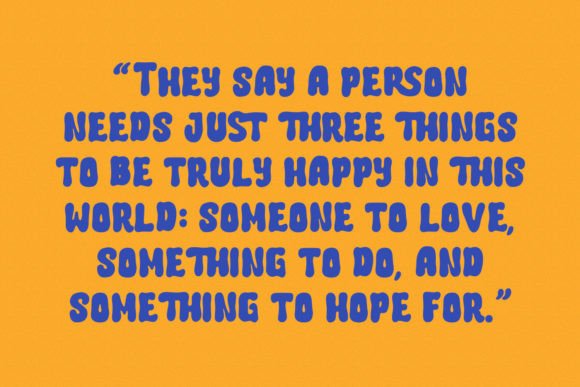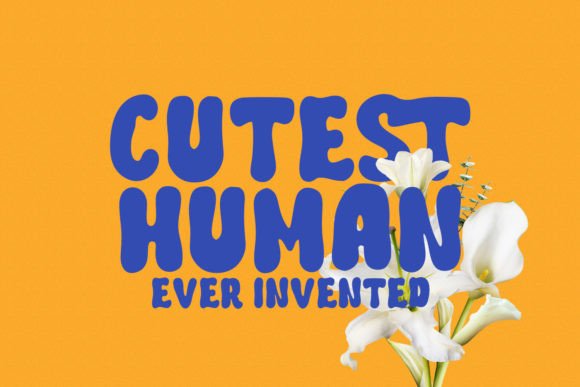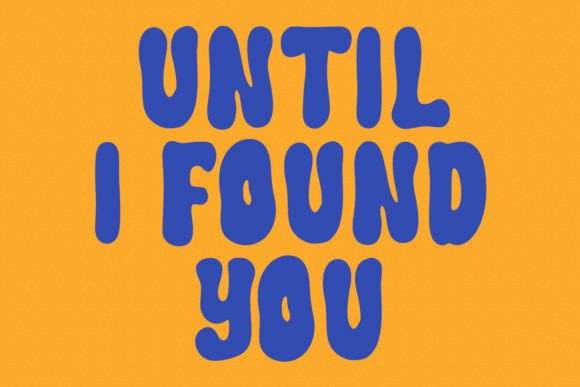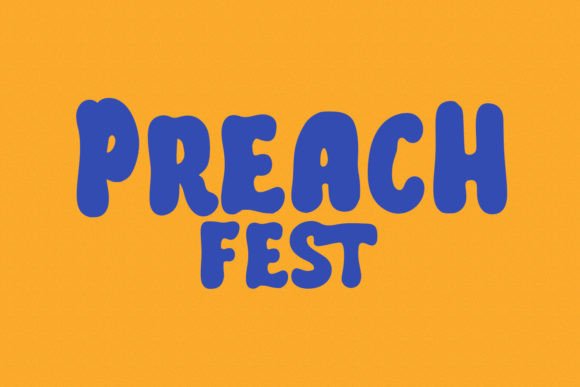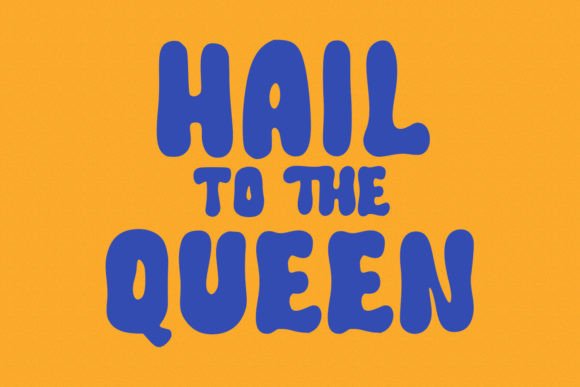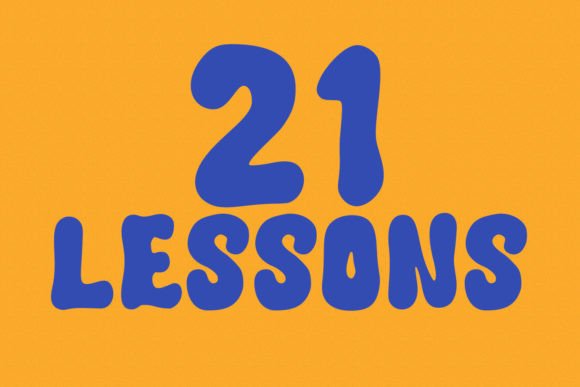
Introduction to Norsics Font
Have you ever been working on a creative project, pouring your heart and soul into it, and then suddenly, the perfect font pops up and changes everything? That’s exactly what happened to us when we stumbled upon the Norsics Font.
With its fun and whimsical touch, this display font is sure to elevate any design project, from crafting and digital designing to presentations and greeting cards making. Whether you’re a seasoned designer or just starting out, the Norsics Font is a valuable resource to have in your toolkit. Its high quality and trendy vibe make it a must-have for any creative project that requires a little extra flair.
Key Features of Norsics Font
- Unique, high-quality font design ideal for creative projects and design resources.
- Transparent background option, allowing for seamless integration into various design environments.
- High-resolution design, suitable for printing and digital applications at 300 DPI or higher.
- Perfect for use in creative projects, such as logos, typography, and branding materials.
- Comes in a single font size, making it easy to integrate into various design elements.
Honest Review: Norsics Font
I recently had the chance to work with the Norsics Font on a creative project, and I must say it was a great experience. The font is a high-quality design resource that can really elevate the look of your project. One of the things that stands out about the Norsics Font is its transparent background, which makes it easy to layer over other design elements.
- ✨ The font is highly customizable, with a range of styles and weights to choose from.
- ✨ It’s incredibly easy to use, even for those who aren’t design-savvy.
However, there are a few limitations to be aware of. ⚠️ The font may not be suitable for all types of projects, particularly those that require a more formal or traditional look. Additionally, some users have reported issues with font compatibility on certain devices.
Overall, I was really impressed with the Norsics Font and would definitely recommend it to designers looking for a high-quality, versatile font. With its transparent background and range of customization options, it’s a great addition to any design toolkit.
Norsics Font is a versatile design resource that can be used for a variety of creative projects, including logos, brochures, and social media graphics. Its high-quality design and free download availability make it an ideal choice for designers and non-designers alike.
Tips for Getting the Most Out of Norsics Font
To get the most out of Norsics Font, experiment with different font styles and combinations to create a unique design. You can also use Norsics Font in conjunction with other design elements, such as images and graphics, to create a visually appealing design.